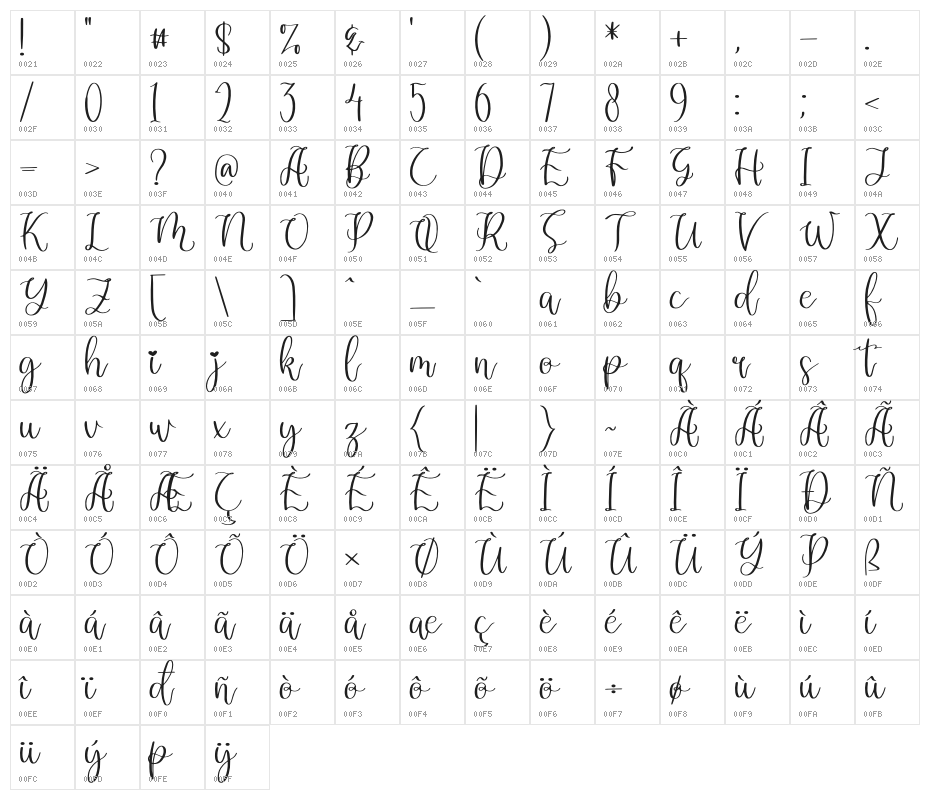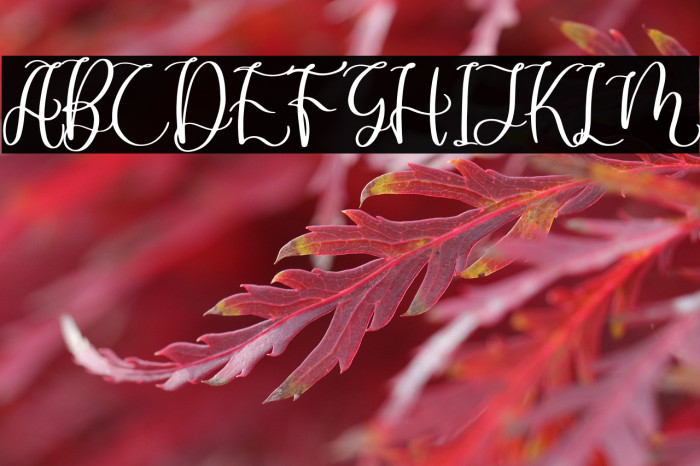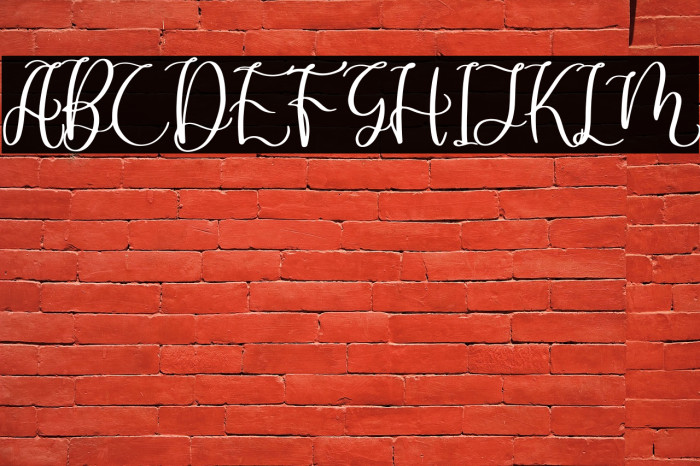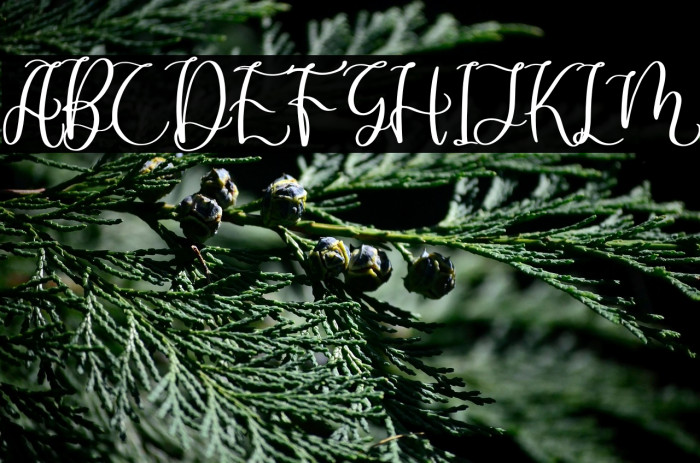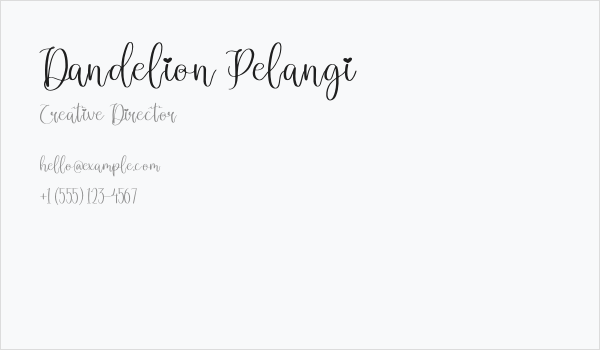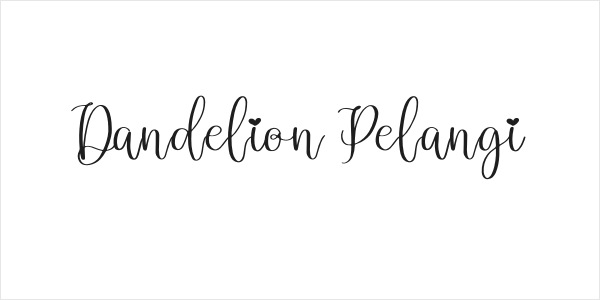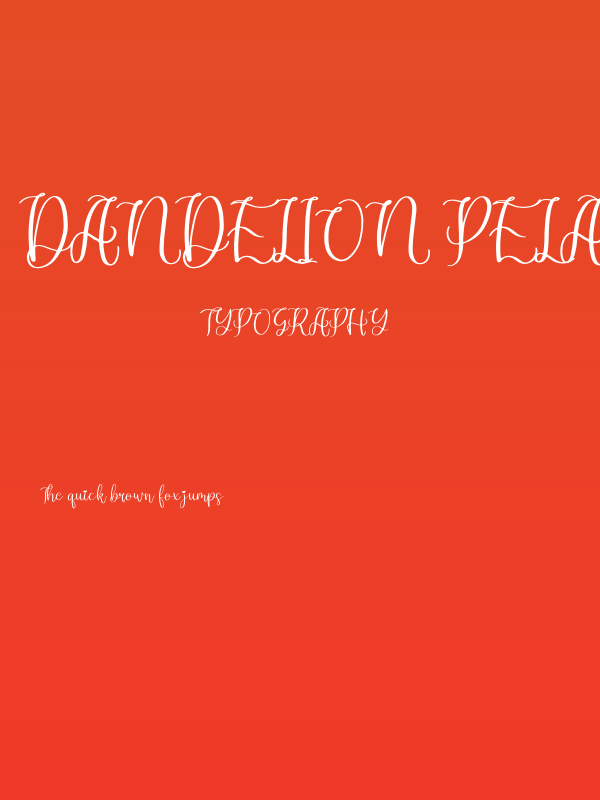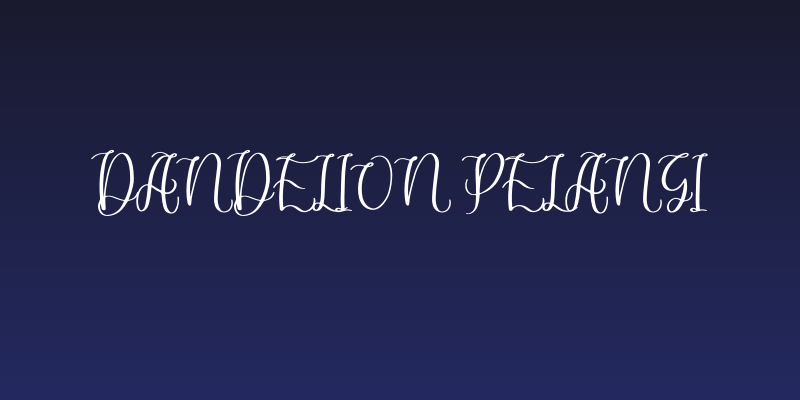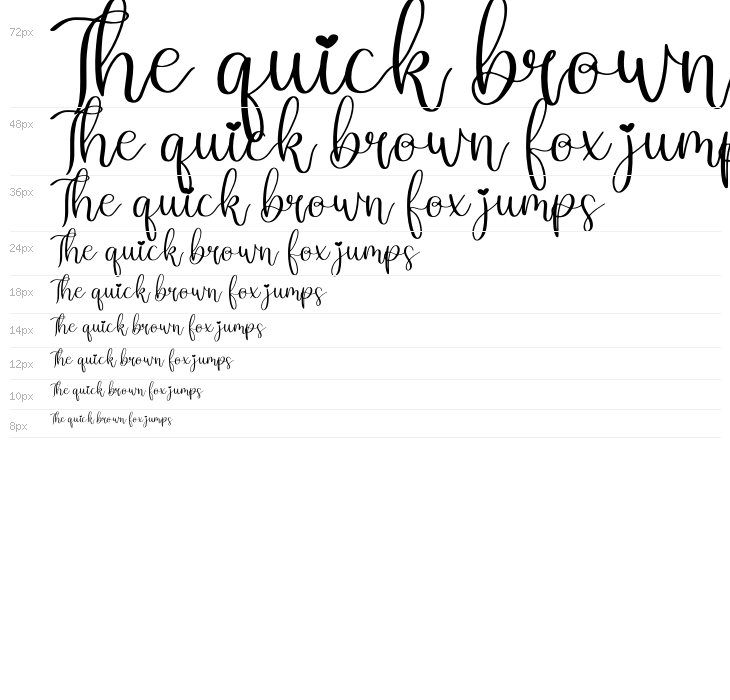
Dandelion Pelangi Font
Dandelion Pelangi Description
This font features a whimsical and flowing script style, characterized by its elegant curves and playful loops. The uppercase letters are tall and slender, with delicate flourishes that add a touch of sophistication. The lowercase letters maintain a consistent flow, with some characters featuring unique swashes that enhance their visual appeal. The numerals are distinct and easy to read, while the special characters blend seamlessly with the overall design. This font exudes a sense of creativity and charm, making it ideal for projects that require a personal and artistic touch.
Use CaseLogos, Invitations, Artistic projects
Proposed ProjectsIdeal for wedding invitations, greeting cards, branding projects, and artistic posters.